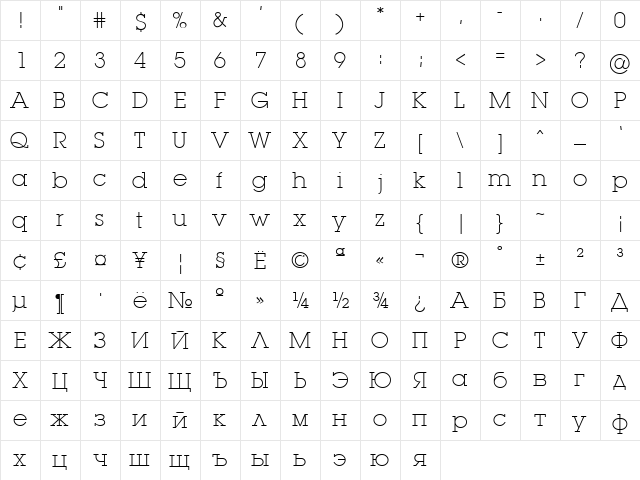
LugaExtra ExtraLight
LugaExtra offers clean, dependable letterforms without strong stylistic allegiance, making it a practical choice for designers who need flexibility. The delicate stroke weight brings airiness and refinement to layouts.